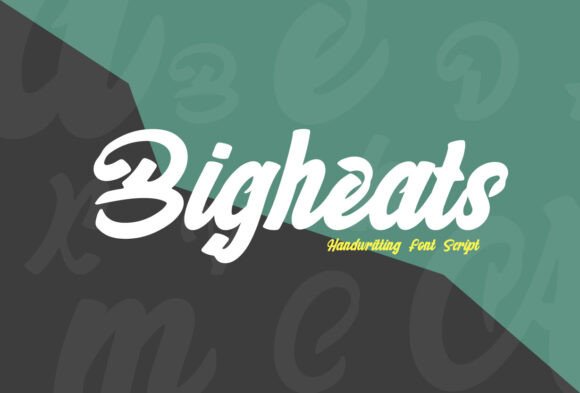
The Bigheats Font: A Handcrafted Gem for Your Designs
Have you ever been working on a design project, pouring your heart and soul into it, only to get stuck on one thing: the font? I certainly have. It was for a client’s wedding invitation design that I realized I needed something special – a font that would convey the warmth and personality of the occasion. That’s when I stumbled upon the Bigheats font, and it instantly became my go-to choice. In this article, I’ll share my love for this beautiful font, its unique features, and how you can make the most of it in your designs.
A Personal Review: What I Love About Bigheats
Bigheats has a soft and elegant brushstroke that gives it a handcrafted feel. The typography looks like handwriting, with fluid and skilled hand movements that make each letter a work of art. Here are some things I love about Bigheats:
• ✨ Unique and Artistic: The brushstrokes are so well-crafted that they appear to be produced by a skilled hand, giving your designs an organic and personal touch.
• ✅ Versatile: Bigheats works beautifully in medium to large typography sizes, making it perfect for headings, titles, and quotes.
• 💫 Emotional Connection: The font’s handcrafted feel helps create an emotional connection with your audience, making it ideal for designs that require a personal touch, such as wedding invitations, greeting cards, and branding.
While Bigheats is an amazing font, there are a few things to keep in mind:
• 🤔 Legibility at Small Sizes: As with many script fonts, Bigheats may lose some legibility at small sizes. It’s best to use it in medium to large typography sizes to showcase its beautiful brushstrokes.
• ⚠️ Overuse: As with any font, using Bigheats excessively can make your design look cluttered. Balance it with other fonts or use it sparingly to create visual interest.
The Story Behind Bigheats
The story behind Bigheats is one of passion and creativity. While the actual origins of the font are unclear, it’s believed to have been crafted by a designer who wanted to create a font that would bring a personal touch to digital designs. The result is a beautiful, handcrafted font that has captured the hearts of designers worldwide.
Q: What type of designs is Bigheats best suited for?
A: Bigheats is perfect for designs that require a personal and organic touch, such as wedding invitations, greeting cards, branding, and more.
Q: Is Bigheats available in different languages?
A: Bigheats may not support all languages, but it does include some special characters and glyphs.
Q: Can I use Bigheats in both print and digital designs?
A: Absolutely! Bigheats works beautifully in both print and digital designs, from business cards to social media graphics.